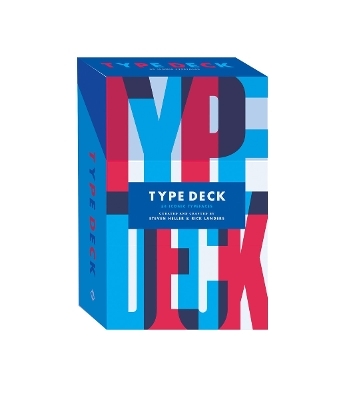
Type Deck: A Collection of Iconic Typefaces
Explore vintage and contemporary typefaces with this stylish and information-rich collection of cards.
Typefaces come in thousands of shapes, sizes and styles. Like verbal language, with all its nuances, dialects, accents and tics, typography is not simply a container of meanings but a translator too. Different faces say distinct things to many people. Type projects authority and frivolity. Type is communication on so many different levels of perception and reception.
Type Deck is a sampler of typographic personality and a primer of expressive visual communication. The letterforms are part of a shared language that have added to the diversity of graphic design. The Deck identifies characteristics and places particular forms in historical periods and aesthetic contexts.
Typefaces come in thousands of shapes, sizes and styles. Like verbal language, with all its nuances, dialects, accents and tics, typography is not simply a container of meanings but a translator too. Different faces say distinct things to many people. Type projects authority and frivolity. Type is communication on so many different levels of perception and reception.
Type Deck is a sampler of typographic personality and a primer of expressive visual communication. The letterforms are part of a shared language that have added to the diversity of graphic design. The Deck identifies characteristics and places particular forms in historical periods and aesthetic contexts.
1 x introduction card • 9 x Victorian • 10 x Arts & Crafts • 7 x Black Letter • 9 x Modern • 9 x Eclectic • 10 x Post Modern